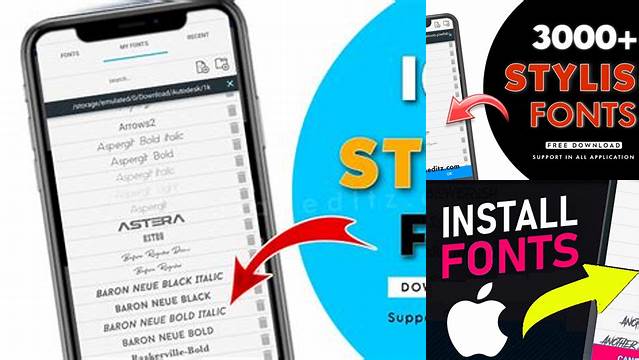
Download Free Fonts For IPhone: Your Ultimate Style Guide
Hey guys! Are you looking to spice up your iPhone with some cool, new fonts? Well, you've come to the right place! This guide is all about free font iPhone downloads, helping you transform your device's look and feel. We'll dive into how to get those awesome fonts, where to find them, and how to use them like a pro. Get ready to say goodbye to boring text and hello to a world of typographic possibilities! So, let's get started and make your iPhone truly yours with some amazing fonts. This is your one-stop shop for everything you need to know about free font iPhone downloads.
H2: Unveiling the World of Free Fonts for iPhone
So, you're curious about free font iPhone downloads, huh? Awesome! You're in for a treat. The world of fonts is vast and exciting, offering a ton of options to personalize your iPhone. From elegant scripts to bold, modern styles, there's a font out there for everyone. But before we jump into the how-to, let's talk about why you might want to do this. Changing your fonts can totally change the vibe of your phone. It can make your messages look cooler, your notes more engaging, and your overall user experience way more fun. It's like giving your iPhone a fresh coat of paint, but with words! The best part? You can find tons of free font iPhone downloads, so you don't have to break the bank to give your phone a makeover. Imagine reading your favorite websites or typing up emails in a font that really speaks to you. No more settling for the default! The internet is a treasure trove of fonts just waiting to be discovered. We'll explore various apps, websites, and methods to make sure you get your hands on the best free fonts available. We'll talk about things like readability, style, and the overall look of your device. It's all about finding the fonts that reflect your personality and make your iPhone truly unique. Remember, it's all about expression and creativity. Whether you are a creative professional or someone who just wants a little extra style, these free font iPhone downloads will give you everything you need.
H2: Using Your New Fonts: Tips and Tricks for a Stylish iPhone
Alright, you've got your free font iPhone downloads installed. Now, let's talk about making your iPhone look fantastic! Choosing the right fonts is crucial for the overall look and feel. Consider readability: Is the font easy to read on a small screen? Think about the style: Does it match your personality and the apps you use the most? Try experimenting with different fonts in different apps to see what works best. Pairing fonts can also create a beautiful effect. Try mixing and matching different fonts. But remember, too many different fonts can be overwhelming. Stick to two or three fonts for a cohesive look. Think about the context: Are you writing documents, taking notes, or creating social media posts? Choose fonts that are appropriate for the type of content you're creating. In note-taking apps, you might want a simple and clean font. For social media, a more playful and eye-catching font might be better. You can create different looks depending on the app you are using. Consider using your new fonts on the home screen. Some apps allow you to customize the look of your home screen widgets. Use a font that adds visual interest to your widgets, but still keeps them readable. Experiment with different font sizes. Make sure your text is readable on your phone, and it doesn't get lost on a small screen. Don't be afraid to experiment. The best part about free font iPhone downloads is that you can try out different fonts without any commitment. If you don't like one, just switch to another! Your iPhone is a way of expressing yourself, and fonts are a powerful tool to get the message across. You can find the perfect style with a bit of experimentation, and make your iPhone look stylish and unique!
H2: Top Apps for Managing and Installing Fonts on Your iPhone
To fully enjoy your free font iPhone downloads, you need a great app to manage them. Here are some of the top apps that you can use to download and install fonts on your iPhone. iFont is one of the most popular choices. It is user-friendly and supports .ttf and .otf file formats. It lets you install fonts from various sources and provides a library of fonts within the app. It is a great choice to use, because it's straightforward and makes installing fonts easy. AnyFont is another solid option. Like iFont, it supports multiple file formats and makes it easy to install fonts. It also allows you to manage your installed fonts and uninstall them if needed. Fontcase is a great option. It's a simple and intuitive app that allows you to install and preview fonts. It offers a library of free fonts and supports a variety of file formats. RightFont is more focused on professional use. It's great for designers and creative professionals. It has features like font preview and organization. Some things to consider when choosing an app include compatibility: Does it support the file formats you need? Ease of use: Is the app easy to navigate and use? Font library: Does the app offer a library of its own fonts, or do you need to source them yourself? User reviews: Are users generally happy with the app? Remember to try out different apps to find the one that best suits your needs and preferences for your free font iPhone downloads.
H2: Free Font Styles: Explore Different Font Categories
Now that you know how to get your free font iPhone downloads, let's talk about the different styles and categories of fonts you can explore. The world of typography is incredibly diverse, offering a style for every taste and project. Serif fonts are the classics. They have small strokes, called serifs, at the end of each letter. These are perfect for body text and reading, as they are often considered more readable. Examples include Times New Roman and Georgia. Sans-serif fonts are more modern and clean. They don't have serifs, so they appear more minimalistic. Great for headings and digital displays, these fonts are the go-to choice for a modern aesthetic. Examples include Helvetica and Arial. Display fonts are designed to stand out. They are often bold, decorative, and used for headlines, titles, and short text. They grab attention and add personality. Examples include Impact and Lobster. Script fonts mimic handwriting. They can be elegant, casual, or playful. They are great for adding a personal touch, but should be used sparingly. Examples include Pacifico and Dancing Script. Monospace fonts assign the same width to each character. They are great for coding and representing text with equal spacing. Examples include Courier New and Monaco. When choosing fonts, consider what you want to communicate. A serif font might convey elegance and tradition, while a sans-serif font might feel more modern and clean. Script fonts can add a touch of personality, while display fonts can grab attention. Experiment with different categories. Mix and match fonts to create a unique look. Pair a serif font for body text with a sans-serif font for headings, or use a script font to add a touch of flair. The more you understand about font styles, the better you can use your free font iPhone downloads.
H2: Font Legibility: Ensuring Readability on Your iPhone
When you are downloading free font iPhone downloads, font legibility is super important. The font you choose should be easy to read on the iPhone screen, especially in small sizes. Here's what to look for. Choosing fonts with a clear distinction between characters is important. The best fonts have letterforms that are easy to differentiate, like the letter